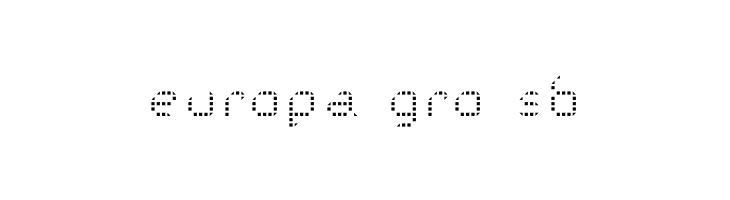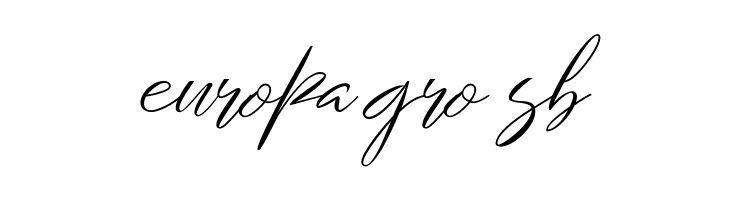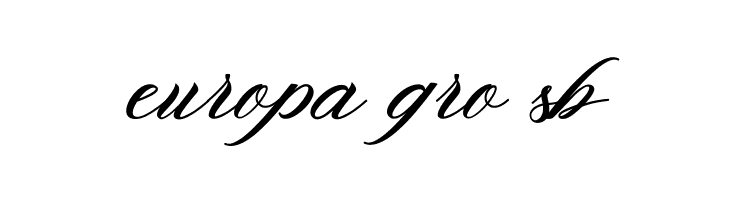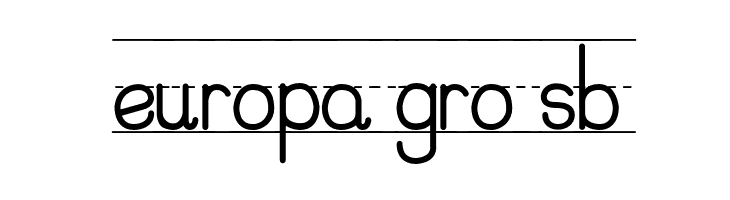
( Jens Cherukad )
A futuristic, pixelated font with a digital, high-tech aesthetic.
( Jens Cherukad )
A futuristic, striped font with a digital, pixelated aesthetic.
( Manuel Lage - napojozare.jimdo.com )
A bold, geometric font with high contrast and strong visual impact.
( MaxiGamer )
A bold, playful font with star-shaped cutouts in each character.
( Måns Grebäck - www.mansgreback.com )
A cursive, elegant font with smooth, interconnected letters and decorative flourishes.
( Måns Grebäck - www.mansgreback.com )
A cursive, handwritten-style font with elegant, flowing strokes.
( OldStudioo - Muhammad Ilham - www.fontdraft.com )
A dynamic and elegant script font with fluid, cursive letterforms.
( Pollem Studio - Muhammad Nur - www.creativefabrica.com/designer/polem/ref/2050/ )
A stylish cursive script font with elegant, flowing strokes.
( RaseOne Full Time Artists - www.graffitifonts.com )
A structured, easy-to-read font ideal for educational use, featuring lined guidance for handwriting practice.
( Ryan Tempro )
A fragmented, modern font with disjointed character segments for a unique visual effect.